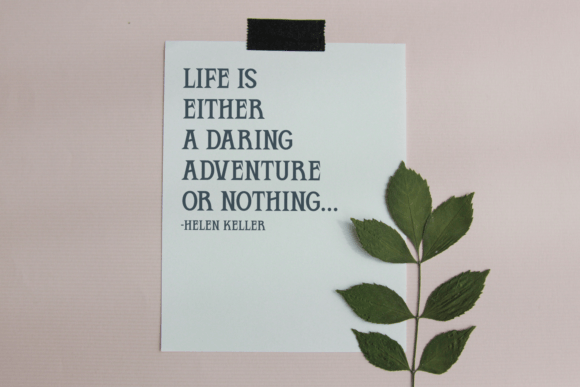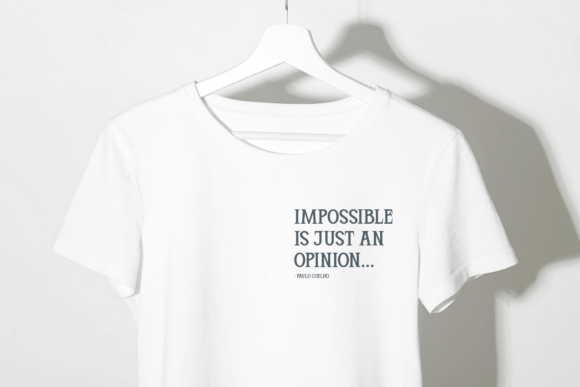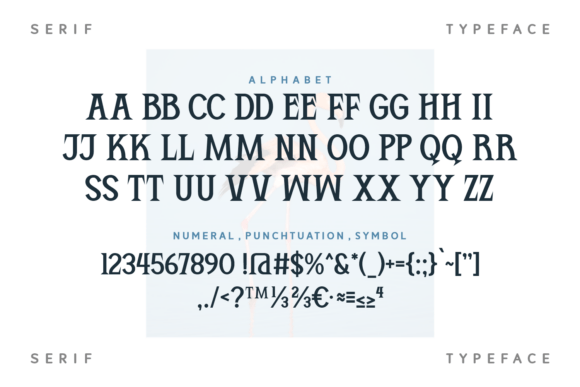
Introduction to Moero Font
Remember the thrill of discovering that perfect font for your creative project? The one that elevates your design from good to extraordinary? For designers, finding that elusive combination of style and sophistication can be a game-changer. That’s where Moero Font comes in – a stunning serif font that embodies timeless elegance and modern refinement.
With its delicate curves and sharp serifs, Moero Font is the ideal choice for luxury branding, editorial layouts, and invitations that demand high-quality visual appeal. Whether you’re working on a premium product launch or a high-end wedding invitation, Moero Font’s refined details and balanced proportions will add a touch of sophistication and charm that’s sure to captivate your audience.
Key Features of Moero Font
- High-quality, unique design for creative projects and design resources.
- Includes multiple font styles and weights for versatility in design.
- Perfect for graphic designers, digital artists, and anyone seeking a high-quality design resource.
Honest Review: Moero Font
As a designer, I’m always on the lookout for high quality design resources to enhance my creative projects. The Moero Font caught my eye, and I decided to give it a try.
- High quality font with a unique and modern design
- Transparent background, making it easy to use with any background image or color
- Great for creating eye-catching headlines and titles in my designs
While I love the Moero Font, there are a few limitations to consider:
- Only available in a few font weights and styles, which might limit its versatility
- Not as extensive a character set as some other fonts, which could be a problem for international projects
Overall Impression
Overall, I’m impressed with the Moero Font. Its unique design and transparent background make it a great addition to my design resource library. While it has some limitations, it’s still a high quality font that’s perfect for creative projects. I’d definitely recommend it to fellow designers looking for a fresh and modern font to use in their designs.
Moero Font is a high-quality, free design resource perfect for creative projects that require a unique touch. This font boasts a transparent background, making it easy to use and customize in various design applications.
To get the most out of Moero Font, experiment with different font sizes, colors, and styles to create unique and eye-catching designs. You can also combine Moero Font with other design elements to add depth and visual interest to your creative projects.
Common Use Cases for Moero Font
Moero Font is perfect for various creative projects, including graphic design, digital art, and typography. It’s also great for use in branding, marketing materials, and social media posts.
Lato is a modern, high-quality font designed for use in digital and print media. It’s a versatile font that can be used in a variety of creative projects, from logos and titles to body text and captions.
Compared to Moero Font, Lato is more modern and sleek, making it an excellent choice for designers who want a clean, high-quality font with a transparent background for their design resource.
Playfair Display is a luxurious, high-quality font perfect for use in creative projects that require a touch of elegance and sophistication. It’s ideal for use in titles, headings, and other design elements where a bold, eye-catching font is needed.